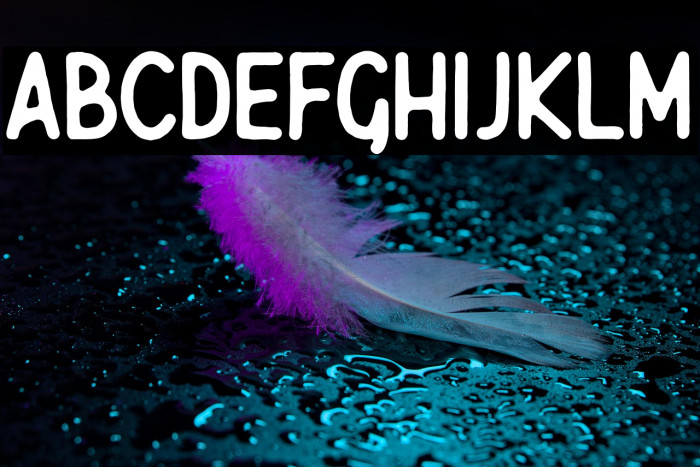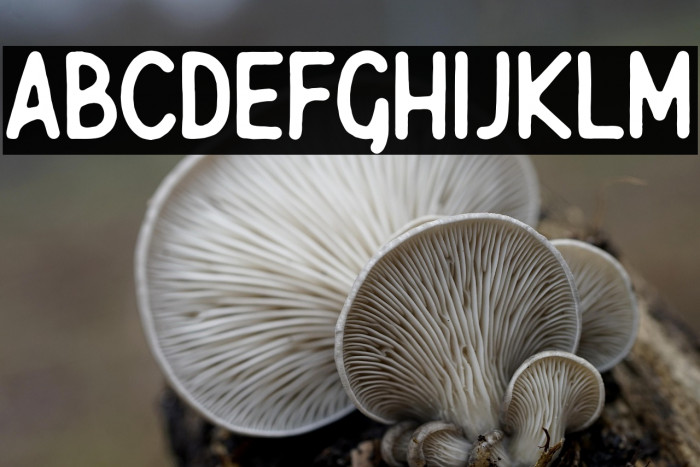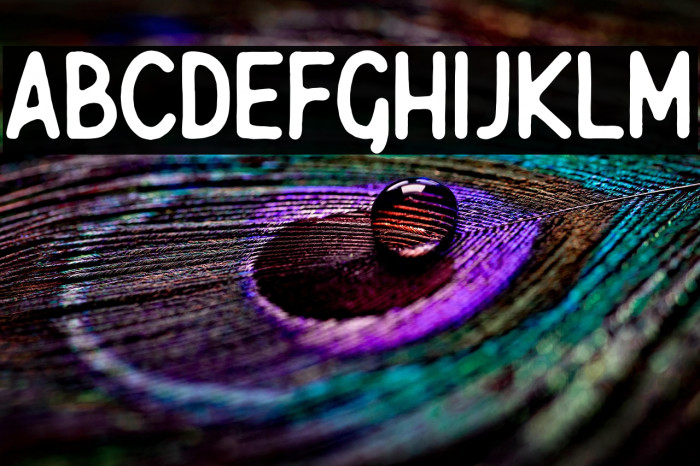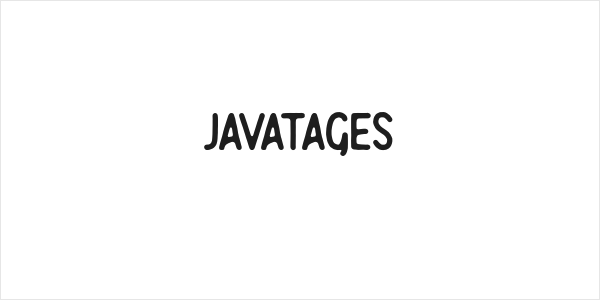
Javatages Font
Javatages Description
This font features a playful and bold design with rounded edges and a hand-drawn aesthetic. The characters are slightly irregular, giving it a whimsical and informal feel. The uppercase letters are consistent in height, while the lowercase letters maintain a uniform baseline, contributing to its readability. Numbers and special characters follow the same style, ensuring a cohesive look across all text. The overall appearance is friendly and approachable, making it suitable for casual and creative projects.
| Proposed Projects | Ideal for children's books, playful branding, greeting cards, and creative posters. |